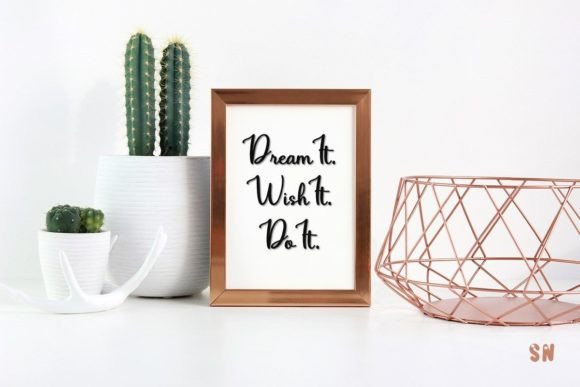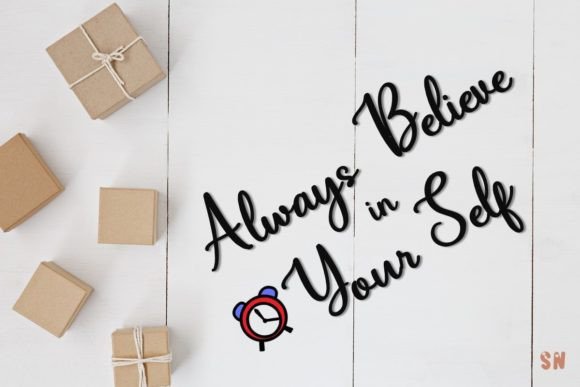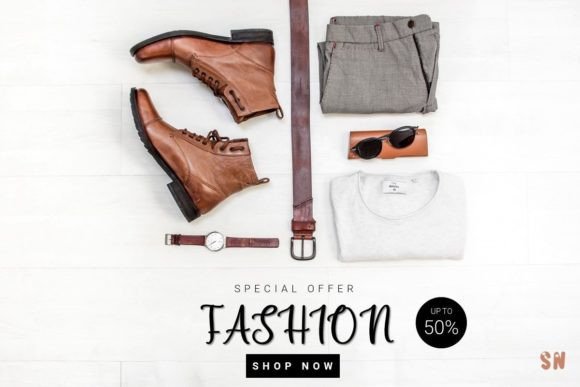
Introduction to Friday Pon Font
Friday Pon is a carefully crafted handwritten font.
Cursive and stylish, that will make your project awesome The font is perfect for fashion branding, photography, quotes, wedding invitation, and much more.
Friday Pon Font offers exceptional quality and versatility, making it a valuable addition to your design toolkit. Whether you’re creating for personal projects or commercial use, Friday Pon Font delivers professional results.